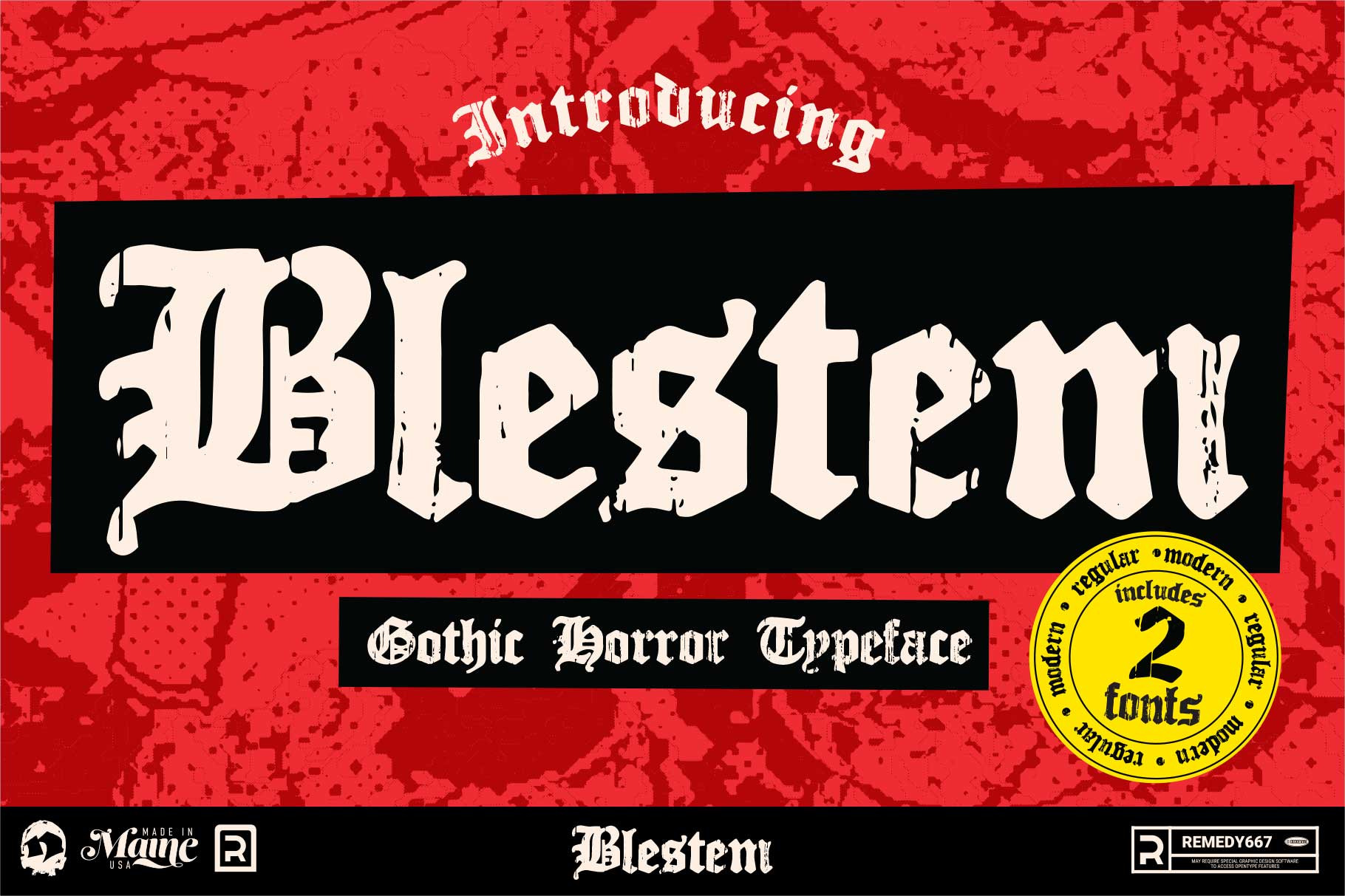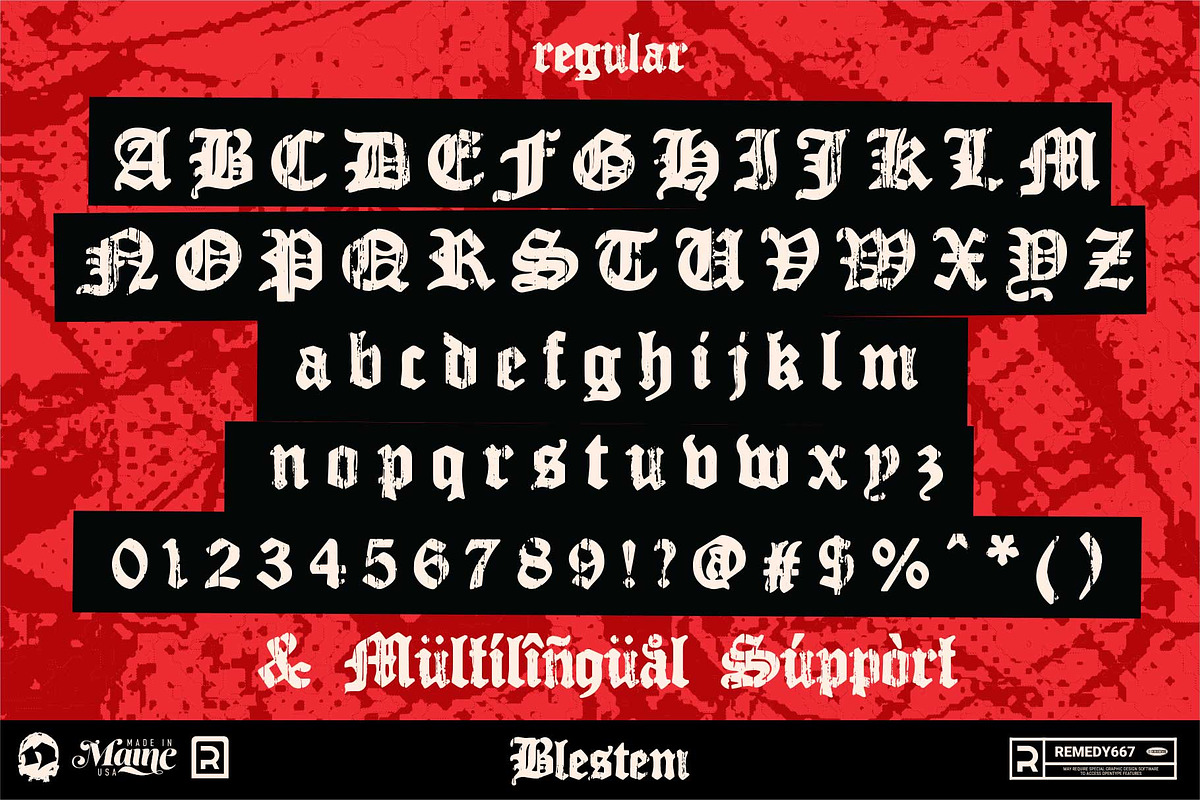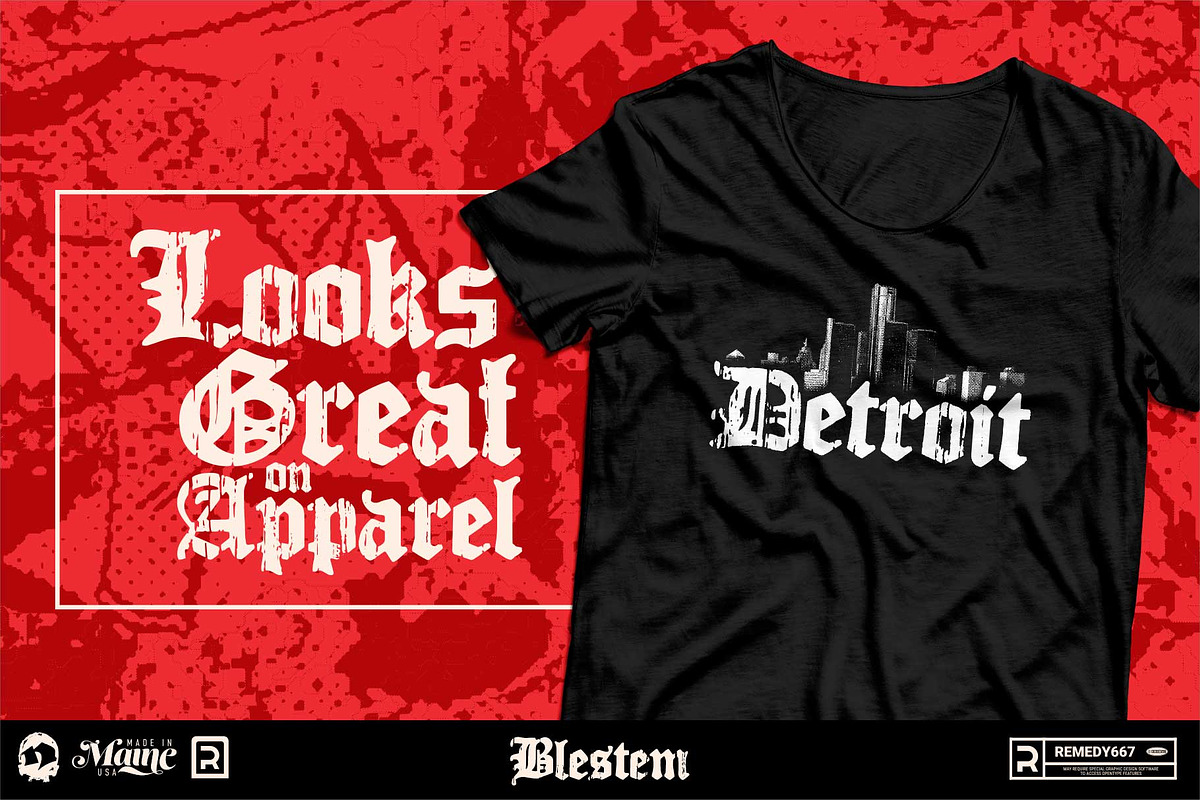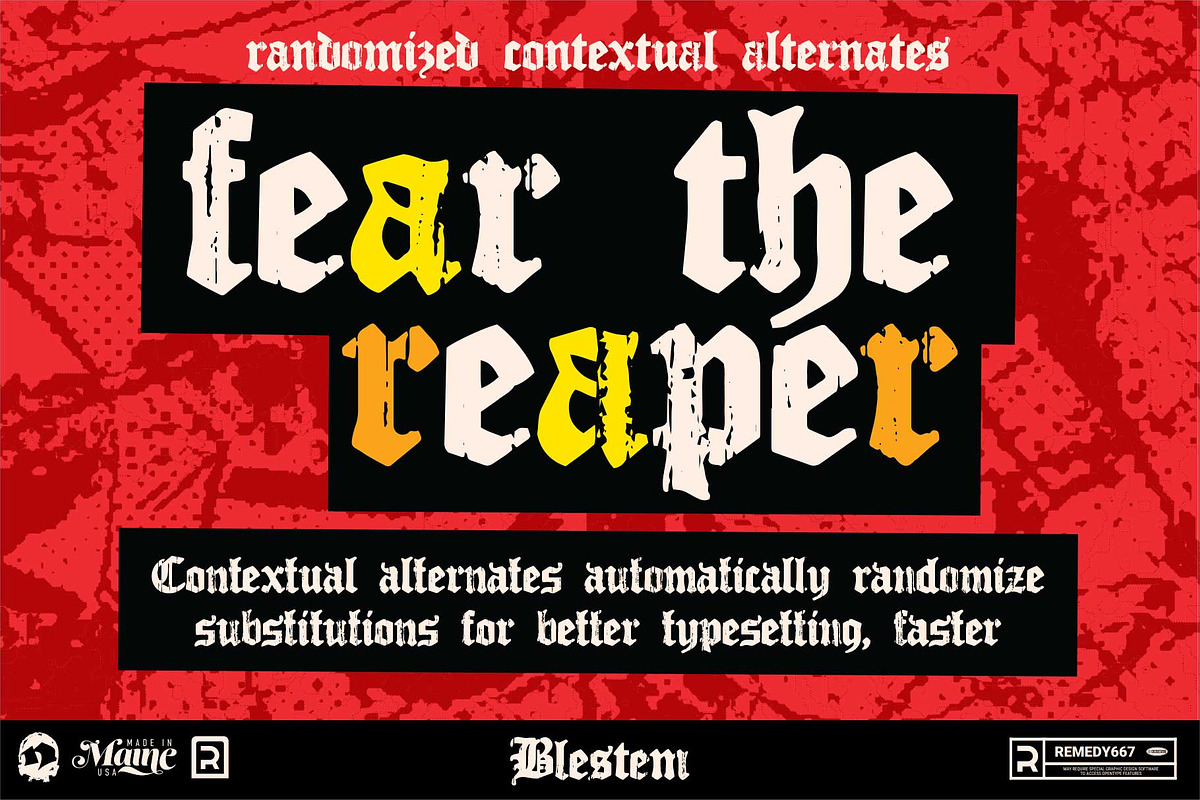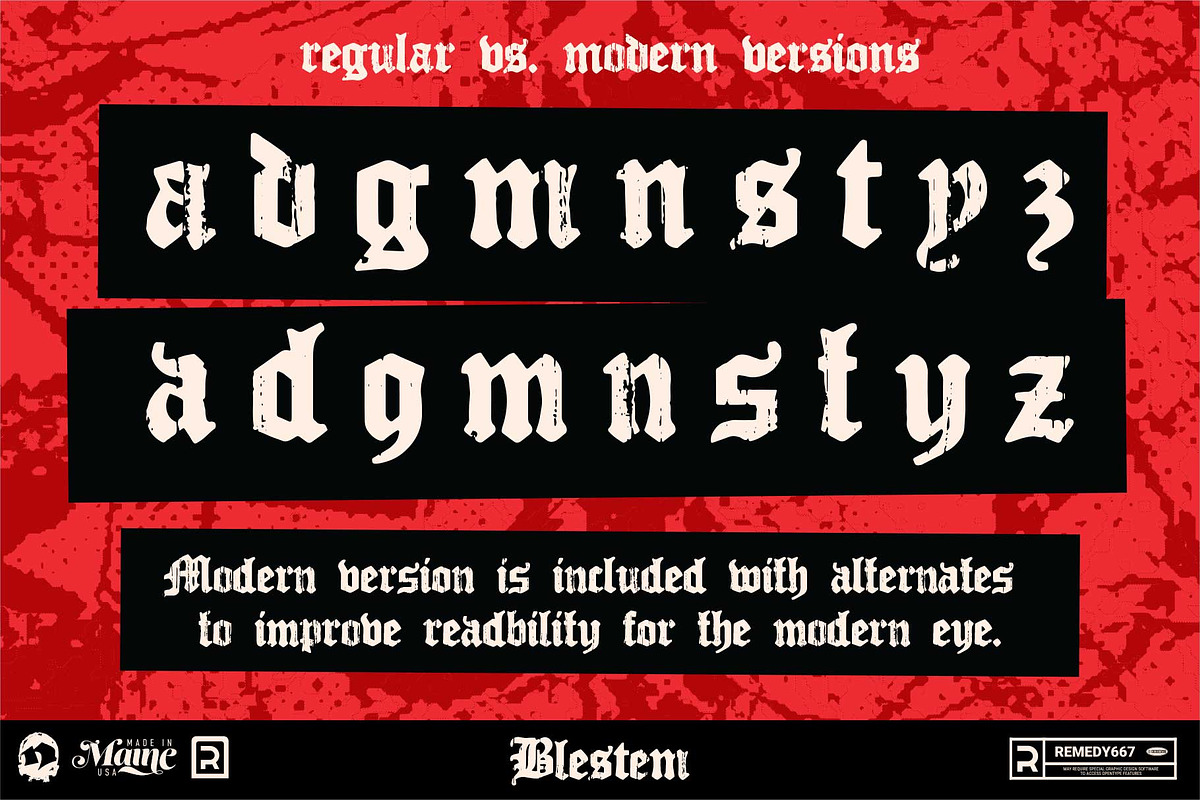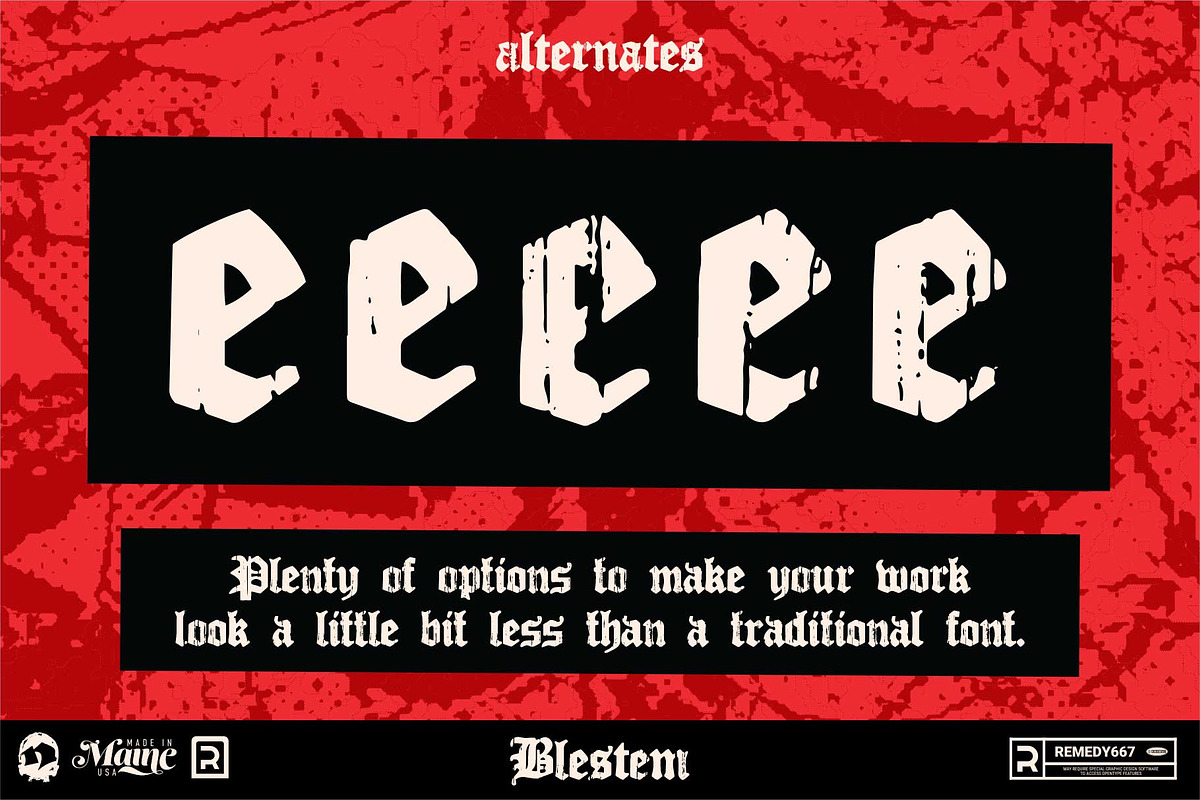
Blestem – Gothic Horror Typeface
Blestem is inspired by woodblock printing, along with the idea of how wood deteriorates as it is weathered by time. It is presented in a Blackletter style typeface. The textures presented in Blestem are taken from real pieces of wood that have been weathered and abused over time, and converted into a vector format for font digital creation. There are many variations of each letter so the font can appear more natural, and have a wider variety of uses.